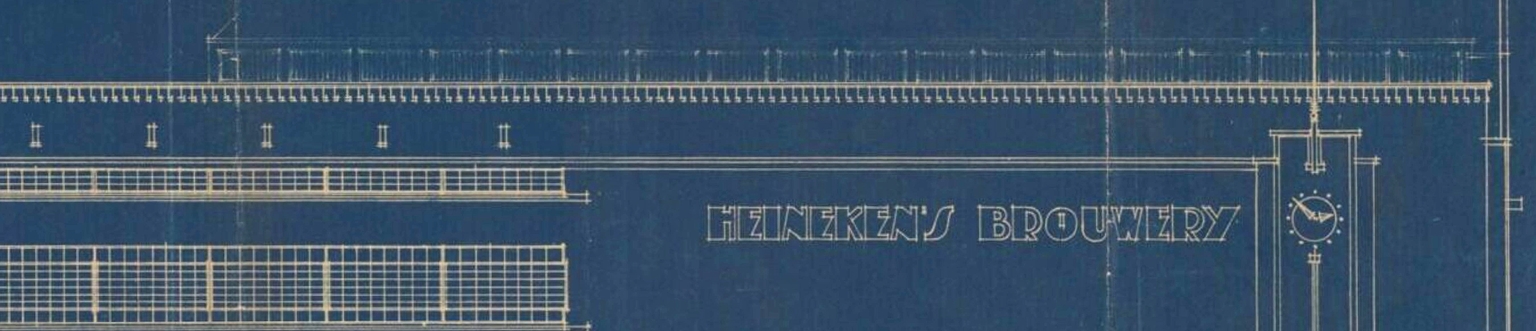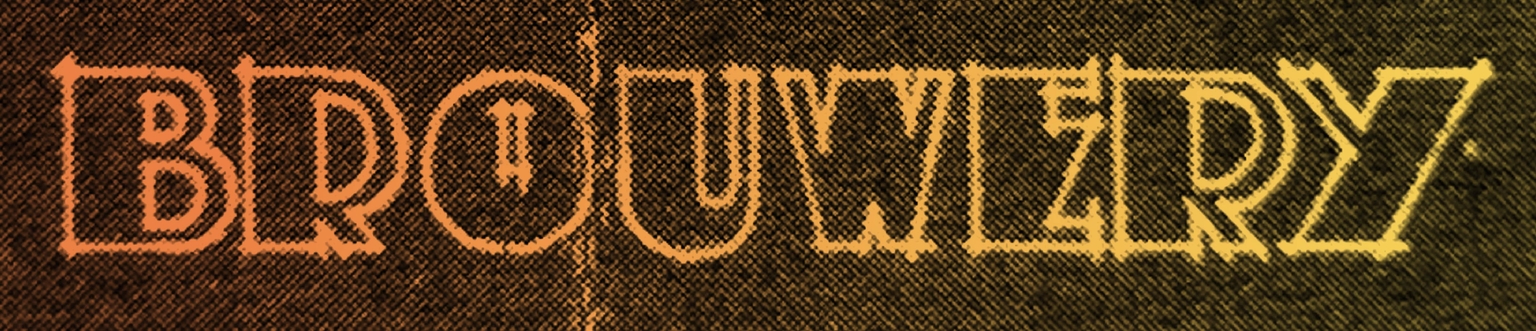
Brouwer
Brouwer is a display typeface loosely inspired by a forgotten episode of Dutch design history. While studying the original blueprints of the Heineken brewery’s façade, Ramiro Espinoza discovered an unused alphabet in a style related to the Amsterdam School. The almost certain author of this blueprint alphabet was architect Bert J. Ouëndag, who designed the building. This early, technically oriented alphabet became the starting point for Brouwer.
Rather than reconstructing the letterforms literally, Espinoza distilled their essential qualities—sturdy proportions and geometric structure—into a versatile typeface suitable for logos, web design, editorial headlines, and advertising. Brouwer balances utility with expressiveness, echoing the character of early twentieth-century industrial lettering while remaining clearly contemporary.
By reviving what might have been, Brouwer pays tribute to Dutch architectural heritage. Now available through Brutal Types, it invites designers to give new life to a nearly lost alphabet.